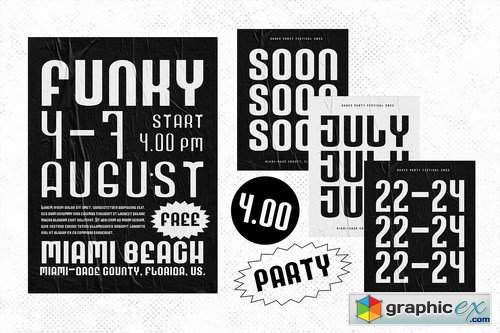
Hulf Stunning Display Fonts
HULF, It is difficult to explain this font, a font that originated from a simple blend of Serif - Sans Serif and Decorative, so let's just call this one unique font for fun. But I believe you can make this font into a logo, badges, or other design as in the preview that we present.